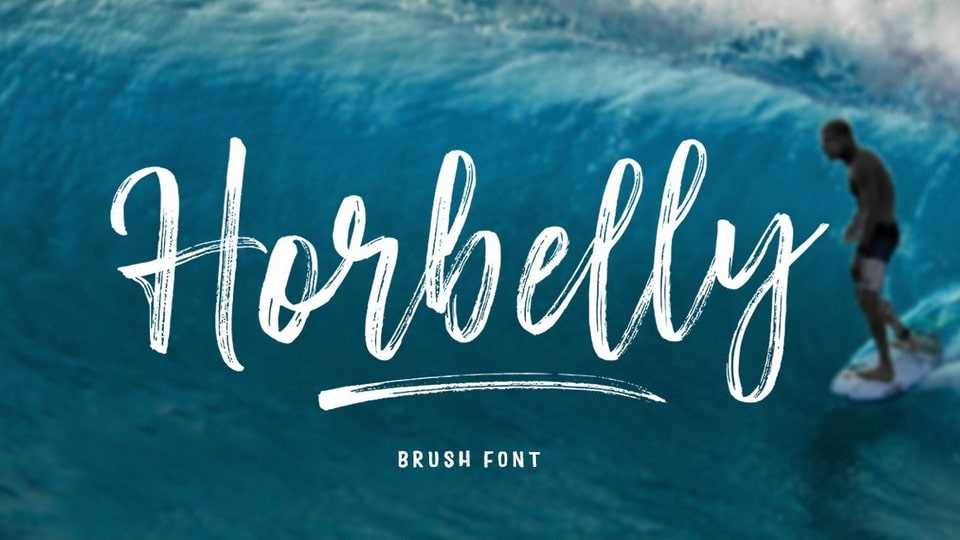
Download Horbelly font, a hand crafted typeface that results out of a stunning pairing of a brush pen and pencil that makes it look incredibly endearing and authentic.